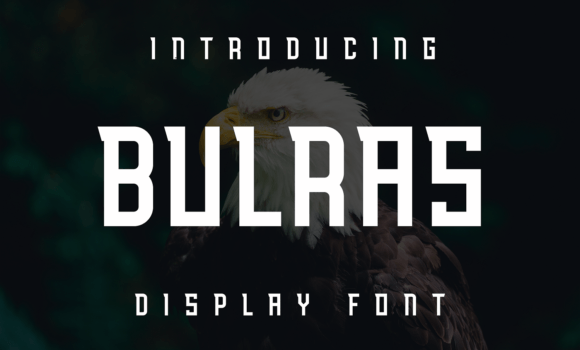
bulras
Bulras Font – Free Download Introduction to Bulras Font Bulras is a cool and stylish display font. 📸 Preview Gallery 2 images 📌 Product Name Bulras Font 👤 Author lelevien 📂 Category Explore ⬇️ Download Bulras Font FREE Free Download